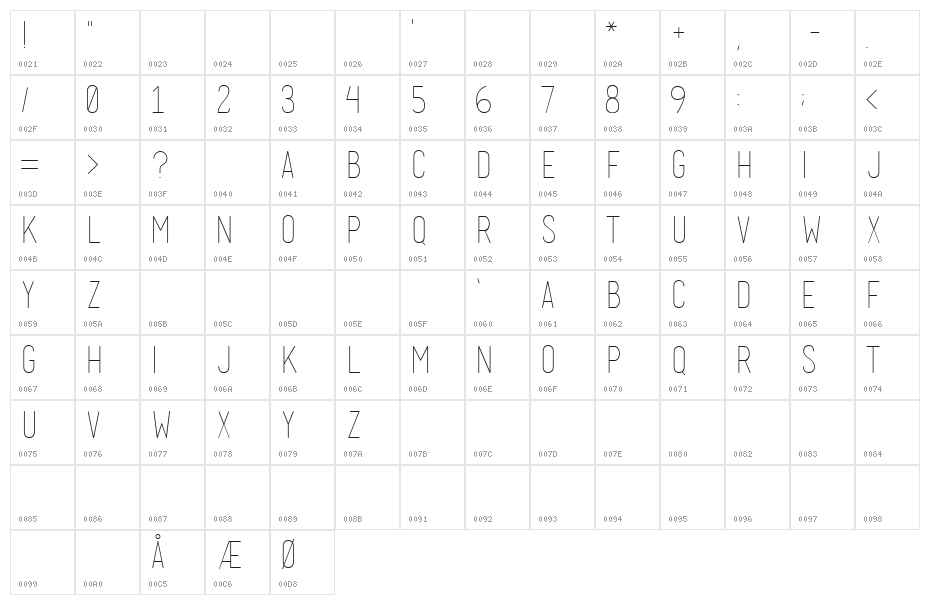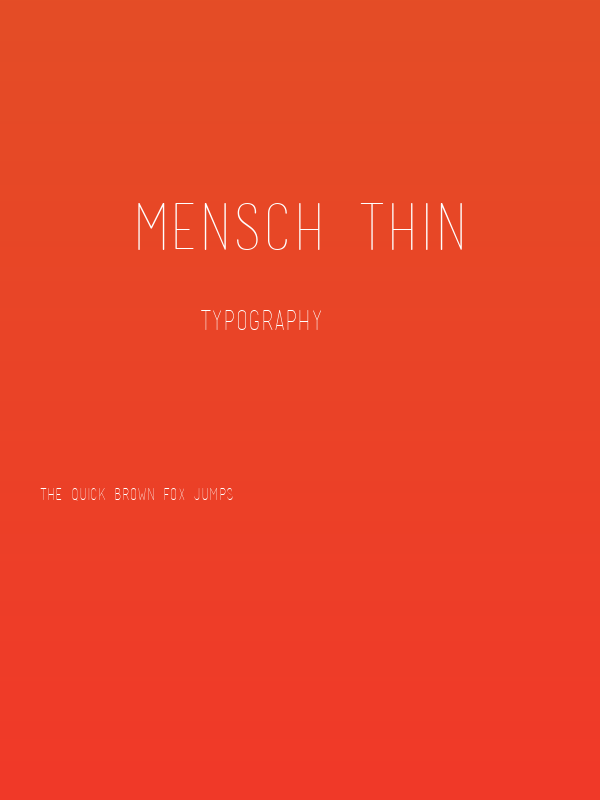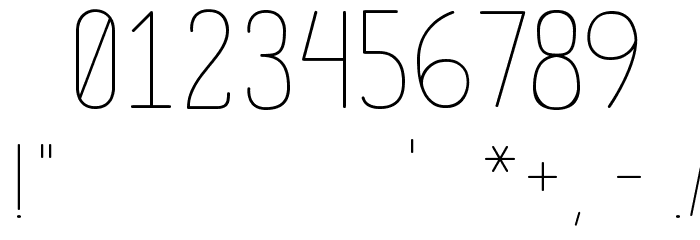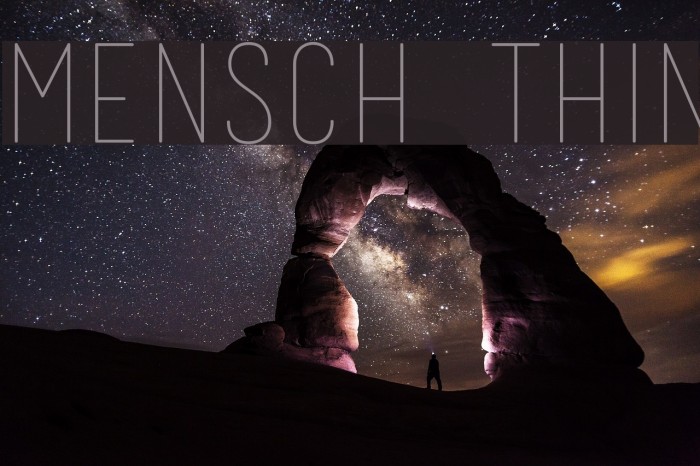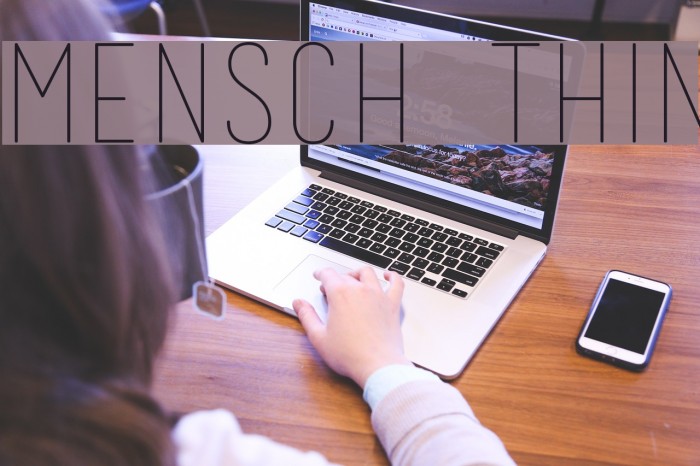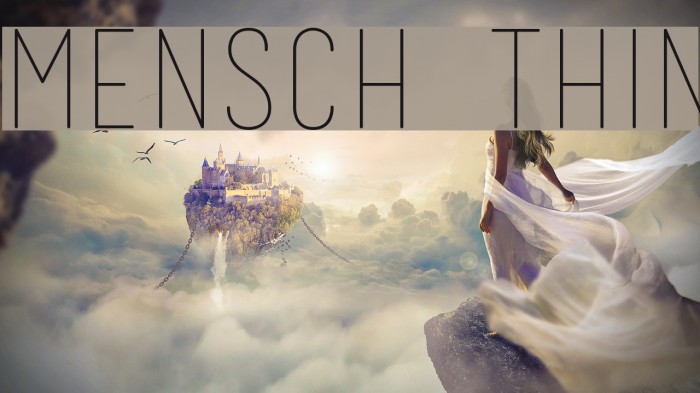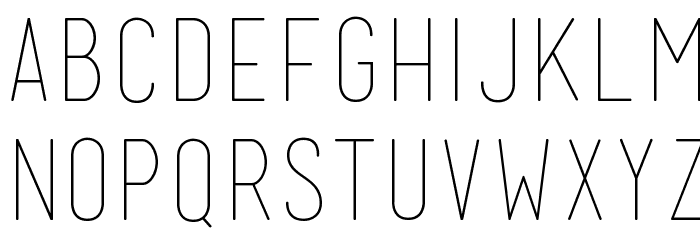
Mensch Thin Font
Mensch Thin Description
This font features a clean and minimalist design with thin, uniform strokes that give it a modern and sleek appearance. The characters are tall and narrow, with a consistent height across both uppercase and lowercase letters. The numerals and special characters maintain the same thin line weight, contributing to a cohesive look. The overall style is geometric, with straight lines and sharp angles, making it highly legible and suitable for contemporary design projects. The spacing between characters is normal, allowing for easy readability without appearing crowded.
| Use Case | Headlines, Logos, Editorial |
| Proposed Projects | Ideal for modern branding, minimalist posters, tech-related designs, and clean editorial layouts. |